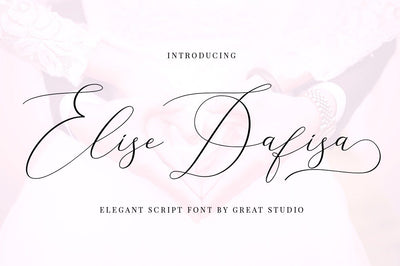
Elise Dafisa - Elegant Script Font
Elise Dafisa is a modern calligraphy font with classic, sophisticated accents. It is perfect for branding, wedding invites and cards.
Elise Dafisa includes full set of lovely uppercase and lowercase letters, multilingual symbols, numerals, punctuation and ligatures. All lowercase letters include beautiful and unique (each letter has own 'unpatterned' ending) beginning and ending swashes. Also, includes following multilingual symbols